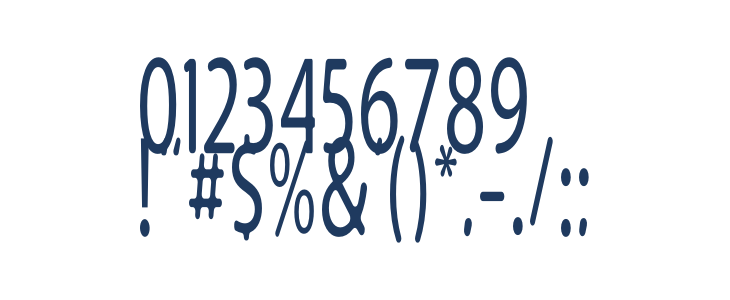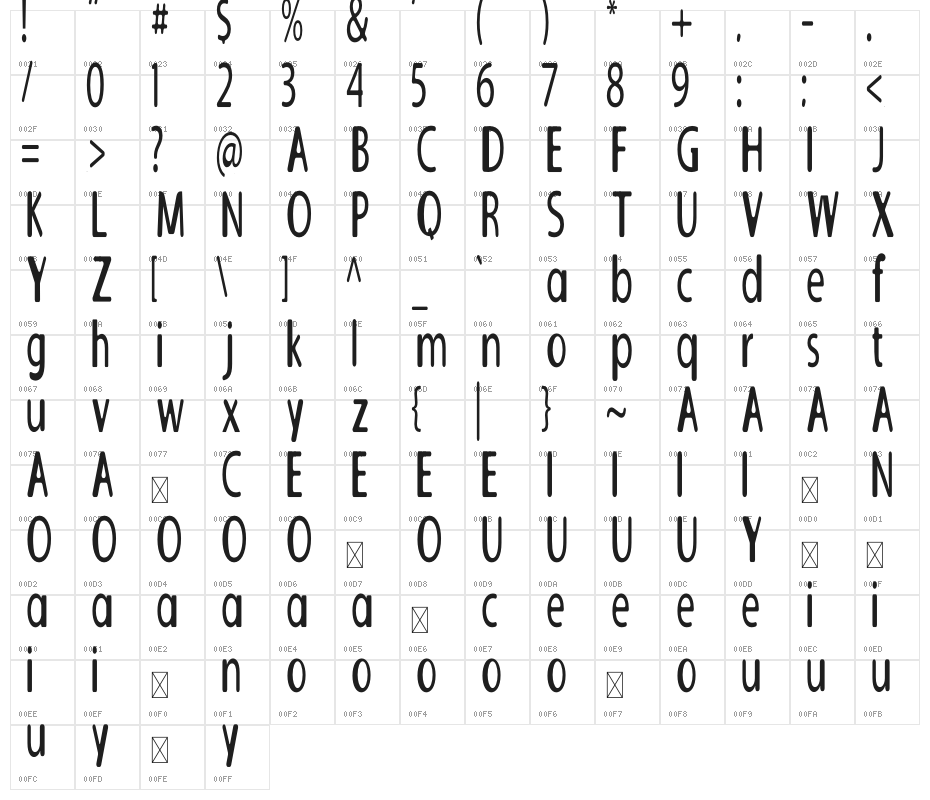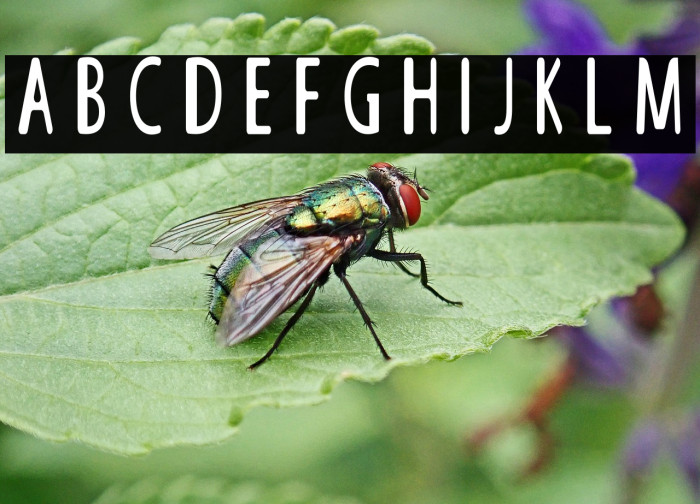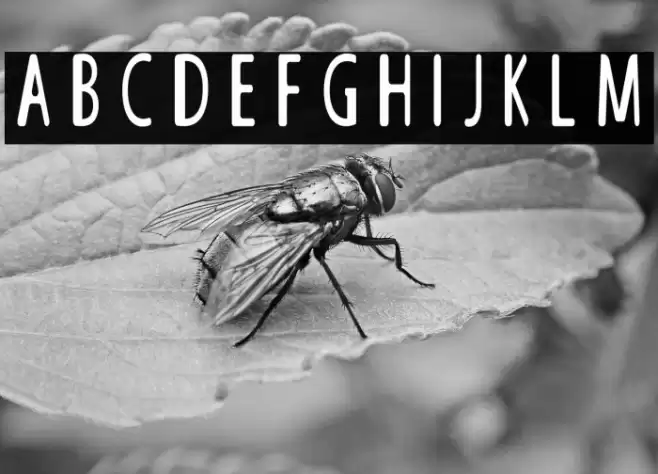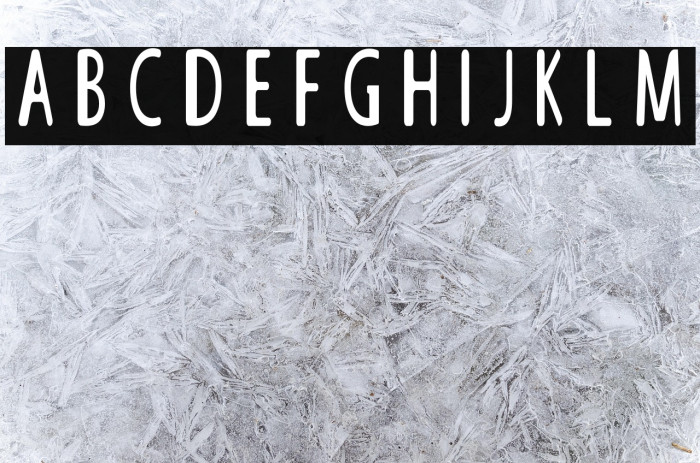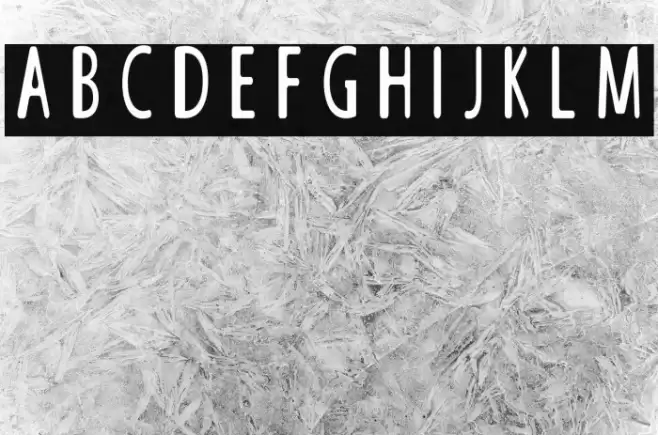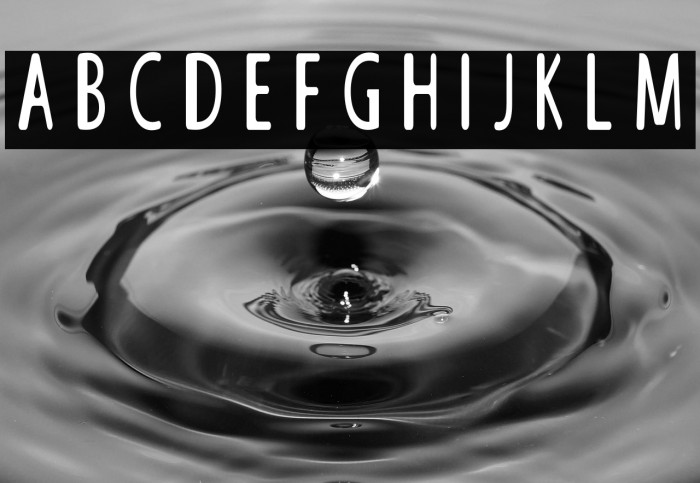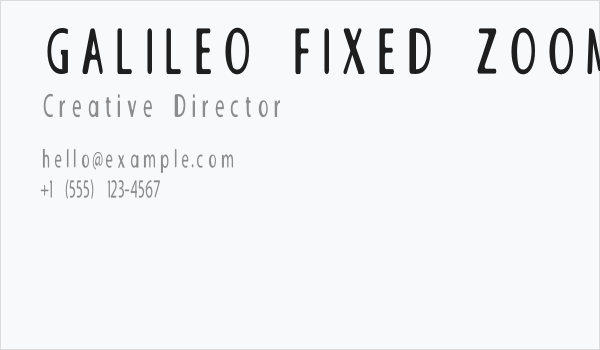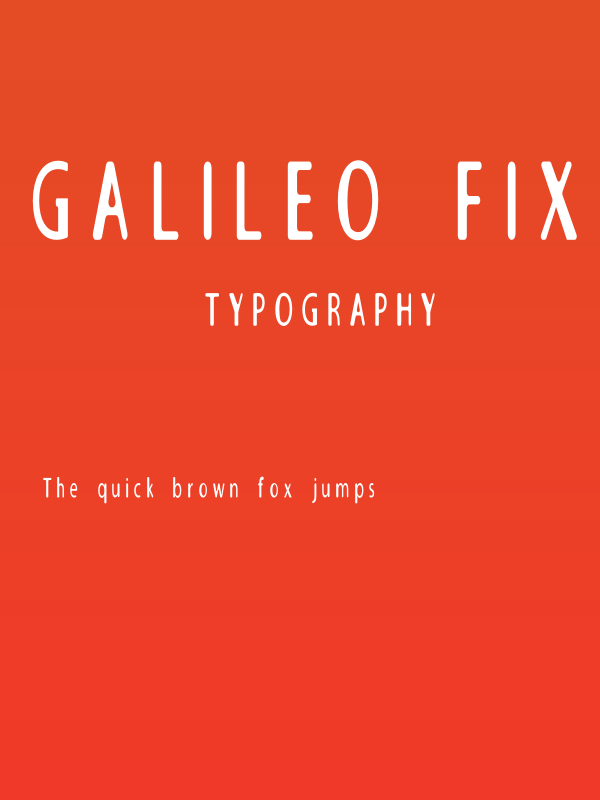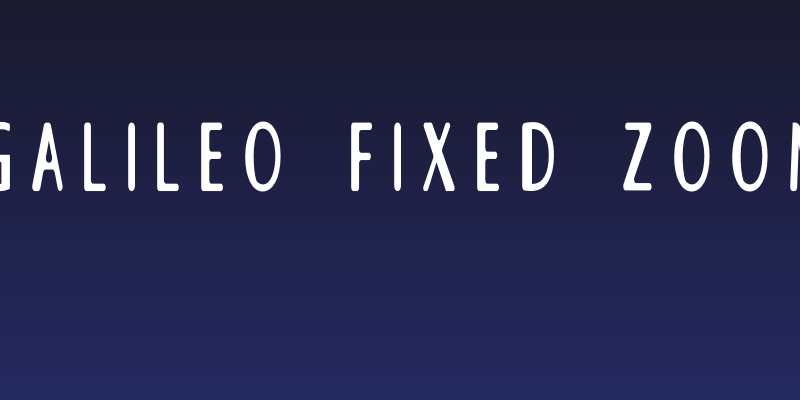
GALILEO FIXED ZOOM Font
GALILEO FIXED ZOOM Description
This font features a clean and modern sans-serif style with rounded edges, giving it a friendly and approachable appearance. The characters are uniformly designed with consistent stroke widths, contributing to a harmonious and balanced look. The uppercase letters are slightly taller than the lowercase, maintaining a clear distinction between the two. The numerals are bold and easily readable, while the special characters are distinct and well-integrated into the overall design. This font's simplicity and clarity make it versatile for various applications.